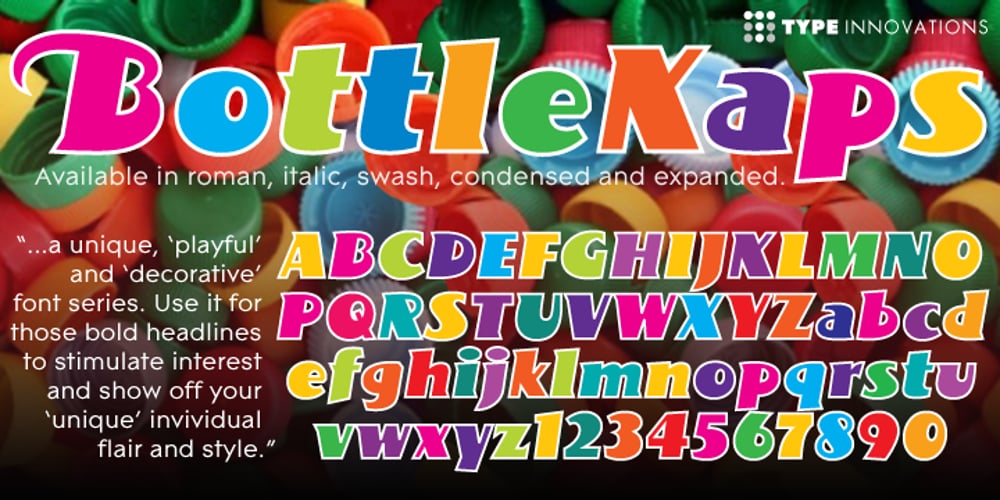
BottleKaps Font Family was designed by Alex Kaczun and published by Type Innovations. BottleKaps contains 15 styles and family package options. Alex Kaczun, originally designed BottleKaps for Linotype-Hell, in 1992, as a QuickDraw GX multi-master font series. A few new GX applications, like ‘Unicorn’, where able to utilize these unique fonts. The GX application allowed the user to adjust weight and proportions, on the fly, including glyph substitution for small capitals, old style figures, swash and alternate endings. The technology was never successfully deployed by Apple, so the individual fonts, 21 styles and variations in all, where sold in the Linotype Font Library as separate Truetype fonts up until 1998. Unfortunately, the fonts collected dust for many years thereafter, but now have been reworked and rejuvenated by Alex in OpenType format for both Mac and PC. ‘BottleKaps’ is a ‘unique’, ‘playful’ and ‘decorative’ font series. Use it for those bold headlines to stimulate interest and show off your ‘unique’ individual style.